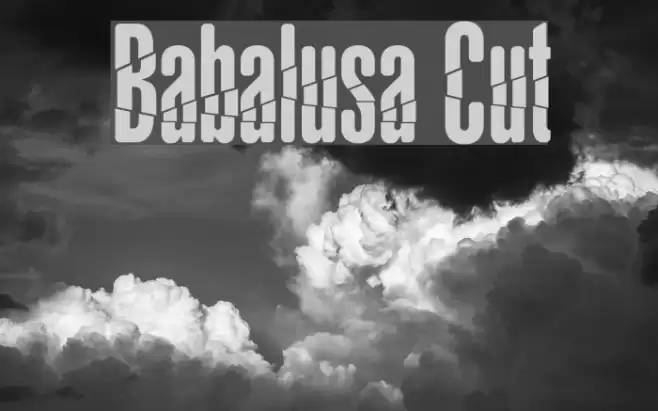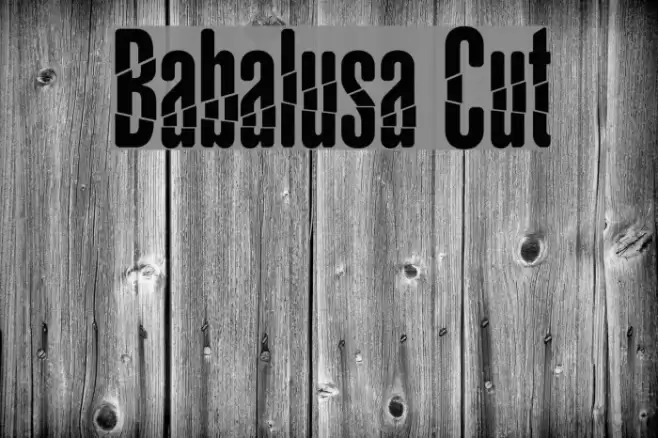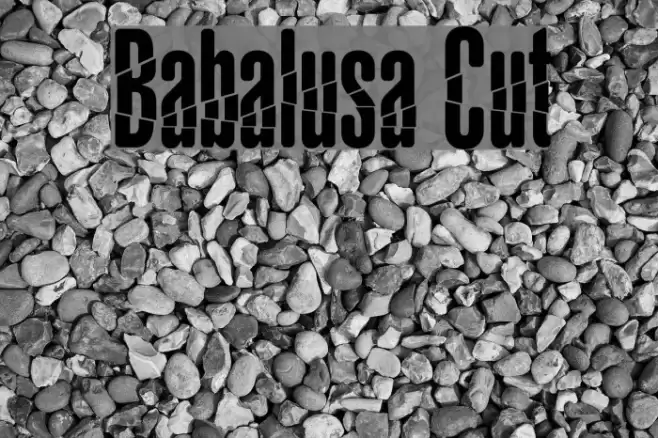
Babalusa Cut Font
Babalusa Cut Description
This font features a bold, modern design with a distinctive cut-through effect that gives each character a dynamic and edgy appearance. The uppercase and lowercase letters maintain a consistent width, creating a uniform look across the text. The numerals and special characters are designed with the same cut-through style, ensuring a cohesive aesthetic. The font's bold weight and high contrast in stroke thickness make it stand out, while the character spacing is relatively tight, adding to its impactful presence. This font is ideal for projects that require a striking and contemporary look.
A bold, modern font with a unique cut-through design, perfect for impactful visuals from Distorted Eroded fonts.
- Proposed Projects: Ideal for branding, poster design, album covers, and any project needing a bold statement.
- Character Spacing: Tight
- Contrast: High